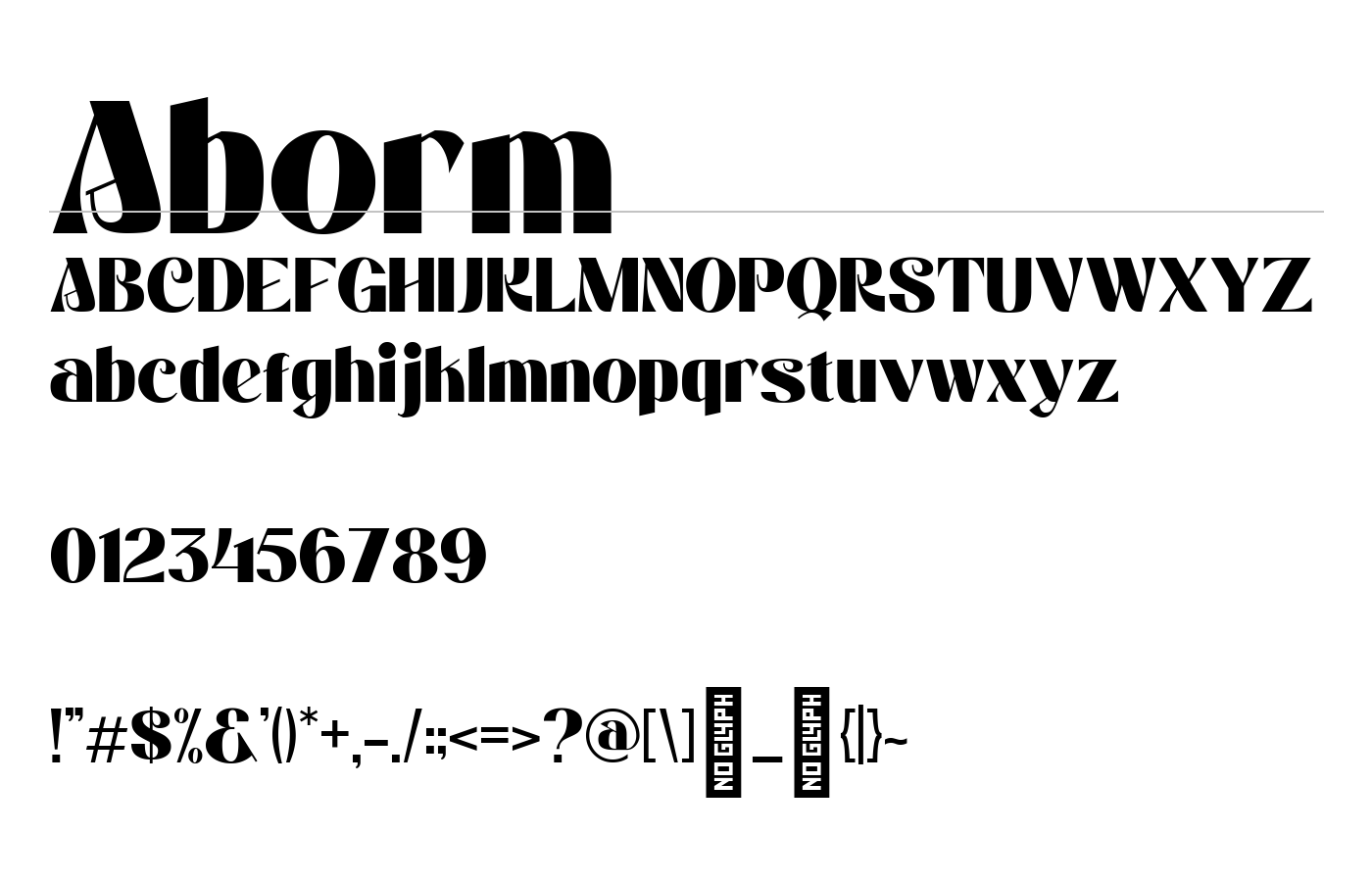
Aborm is a bold serif font with a distinctive high contrast between thick and thin strokes, featuring sharp, geometric serifs that give it a modern yet elegant appearance. Its unique letterforms, such as the stylized Q and playful ampersand, make it ideal for luxury branding, editorial headlines, and striking logo designs. This font combines classic serif sophistication with contemporary flair, perfect for projects that require a strong and memorable visual impact.
Aborm Font
About Aborm Font